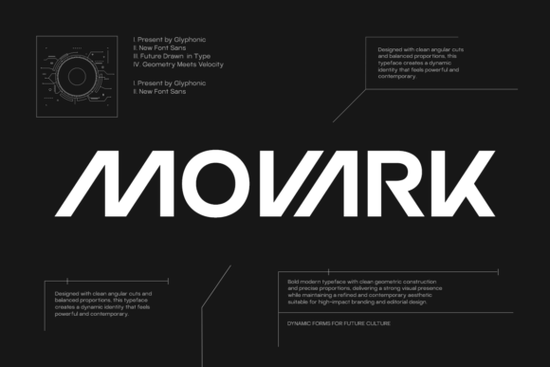
Looking for a modern, bold font that stands out without sacrificing clarity? Movark Font is a clean, geometric sans serif typeface built for designers who want strong visual impact with precision. It’s ideal for logos, branding, editorial design, and digital projects where a futuristic feel matters. The font’s sharp angles and balanced structure give it a technical, forward-thinking look perfect for tech startups, creative agencies, or anyone building a distinctive identity.
What makes Movark Font different?
Movark isn’t just another sleek sans serif. It’s designed with intentional geometry each letterform has purposeful angles and consistent spacing. This creates a sense of movement and strength, even in static text. Whether you’re using it for a headline, app interface, or product label, the font holds its presence across sizes and mediums.
One standout feature is its variable weight support. You can adjust the thickness smoothly from light to heavy without switching fonts. This flexibility helps you create clear visual hierarchy say, a bold logo with subtle body text while keeping your design system consistent.
Where can you use Movark Font?
- Brand identities – Build memorable logos with a modern edge.
- Website headers – Make your site feel current and professional.
- Print-on-demand designs – Great for T-shirts, mugs, and posters with high-impact text.
- Editorial layouts – Use it for magazine titles or chapter headings that demand attention.
- App or UI elements – Its clarity at small sizes works well in digital interfaces.
If you're working on a project that needs a confident, structured look, Movark fits naturally into many creative workflows. It’s especially effective when paired with minimal color schemes or dark backgrounds, letting the font itself carry the visual weight.
How does Movark compare to other modern sans serifs?
While many contemporary fonts focus on soft curves or organic shapes, Movark leans into rigid geometry. Think of it as the “technical” cousin to more fluid styles. It shares some DNA with fonts like Ogakure, but with sharper edges and a stronger emphasis on symmetry. If you’ve liked Mexica for its cultural flair, Movark offers something similar in tone bold and architectural but with a more universal, global appeal.
Final thoughts: Is Movark right for your next project?
If you need a font that feels advanced, precise, and instantly recognizable, Movark delivers. It’s not overly decorative, but it’s far from plain. It’s a tool that supports creativity without distracting from your message.